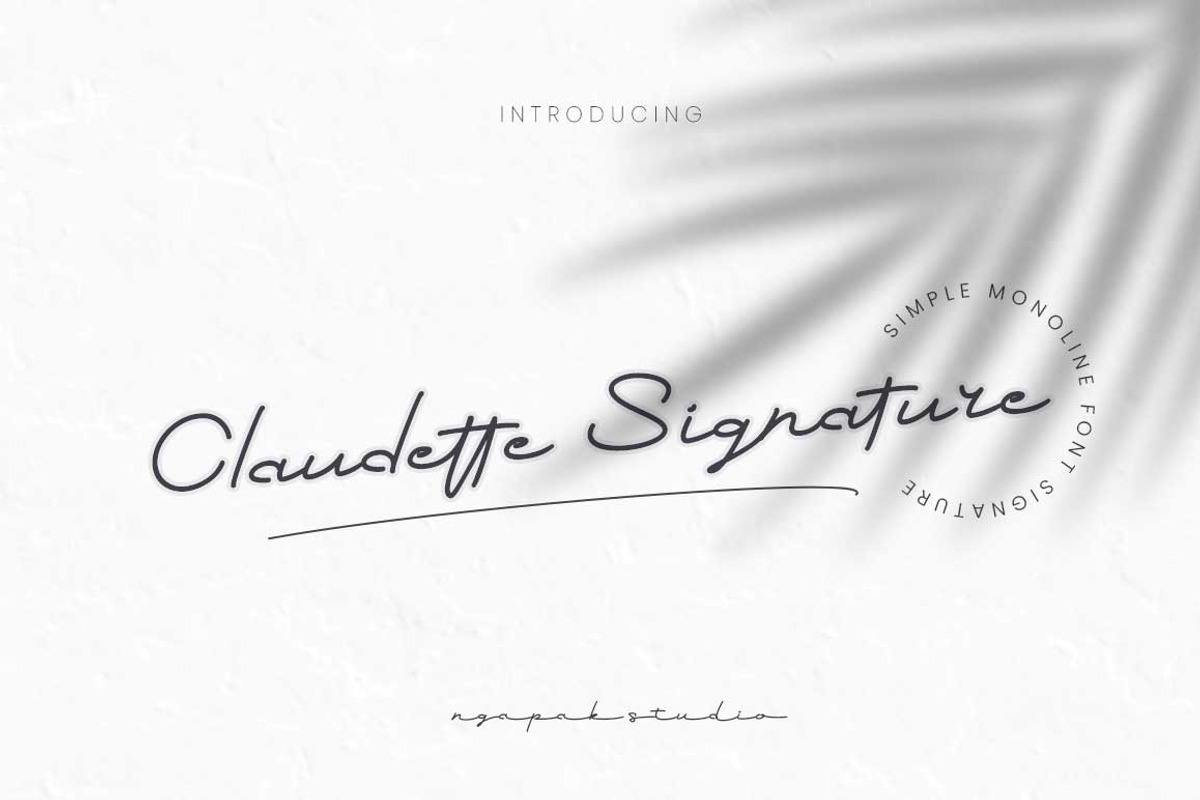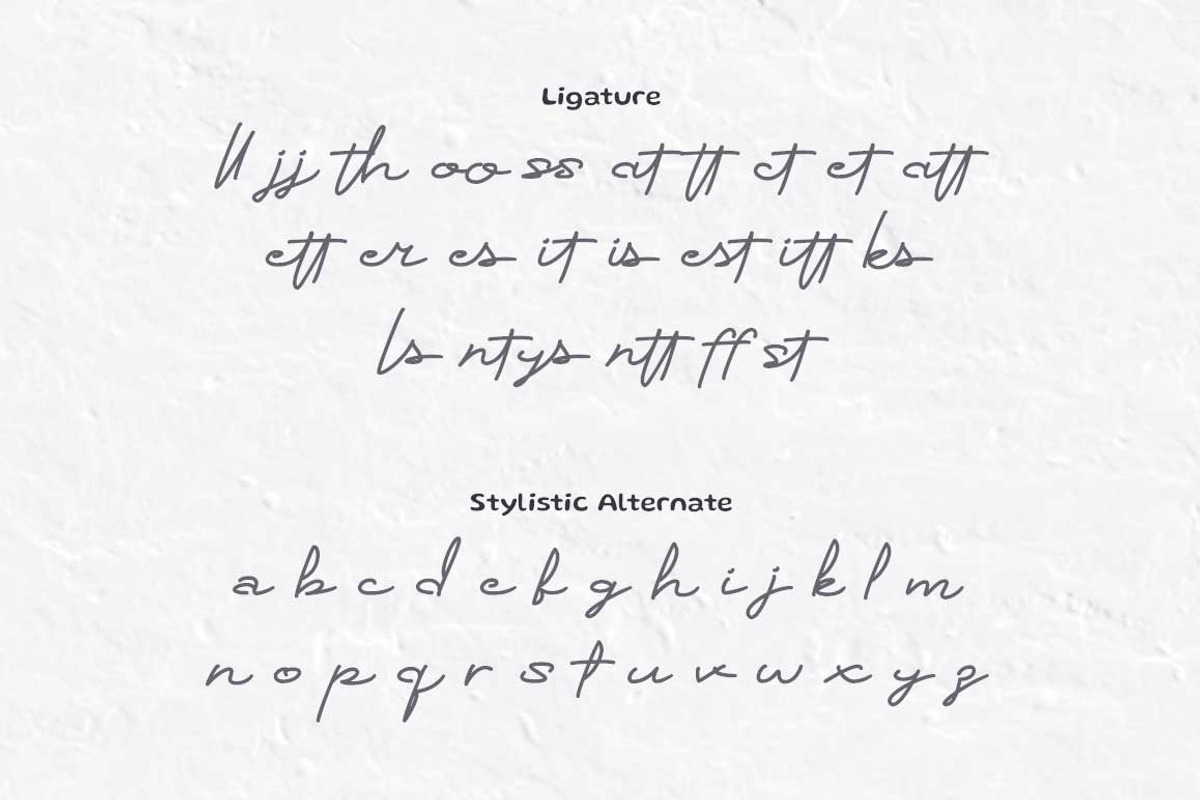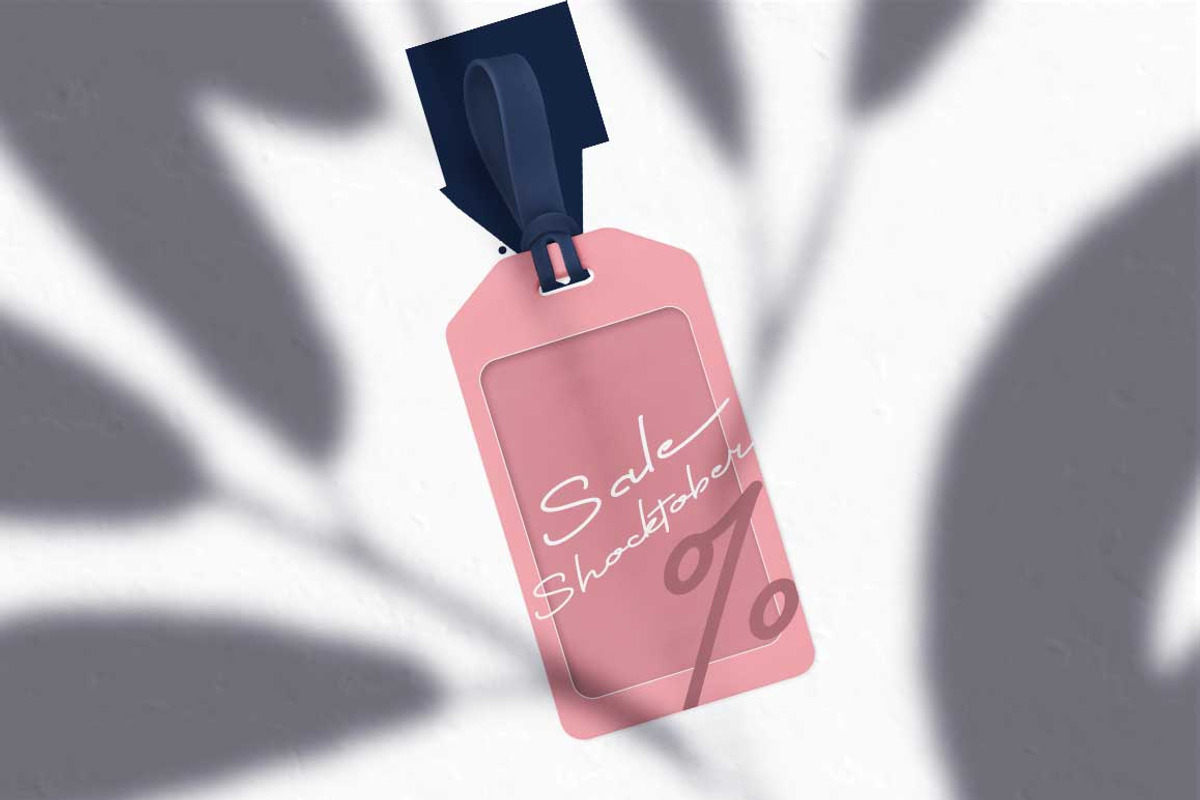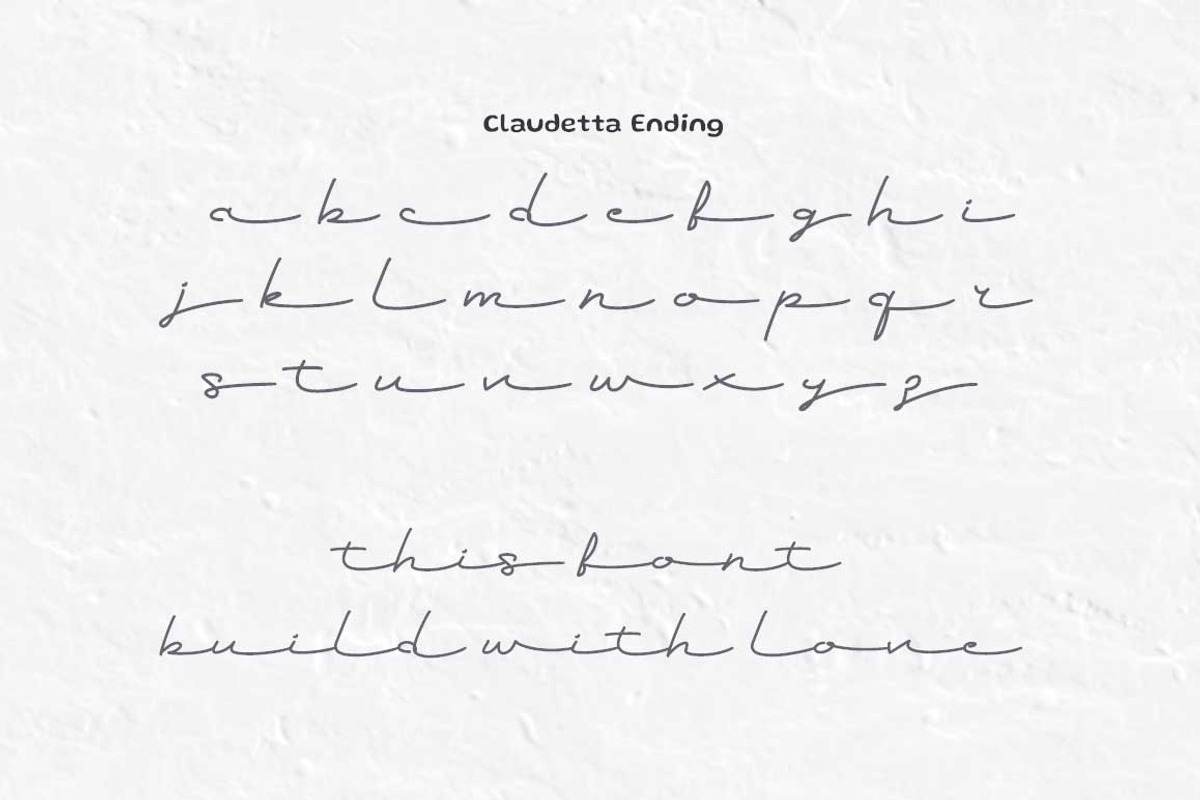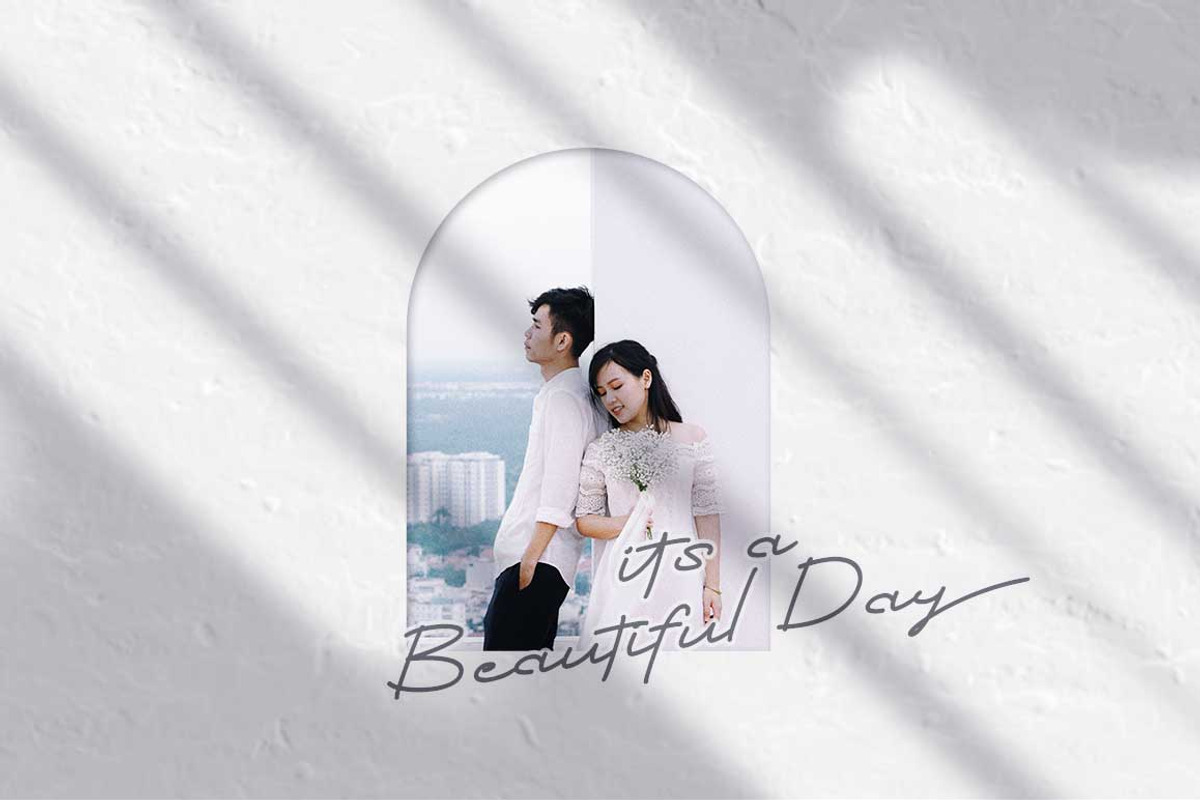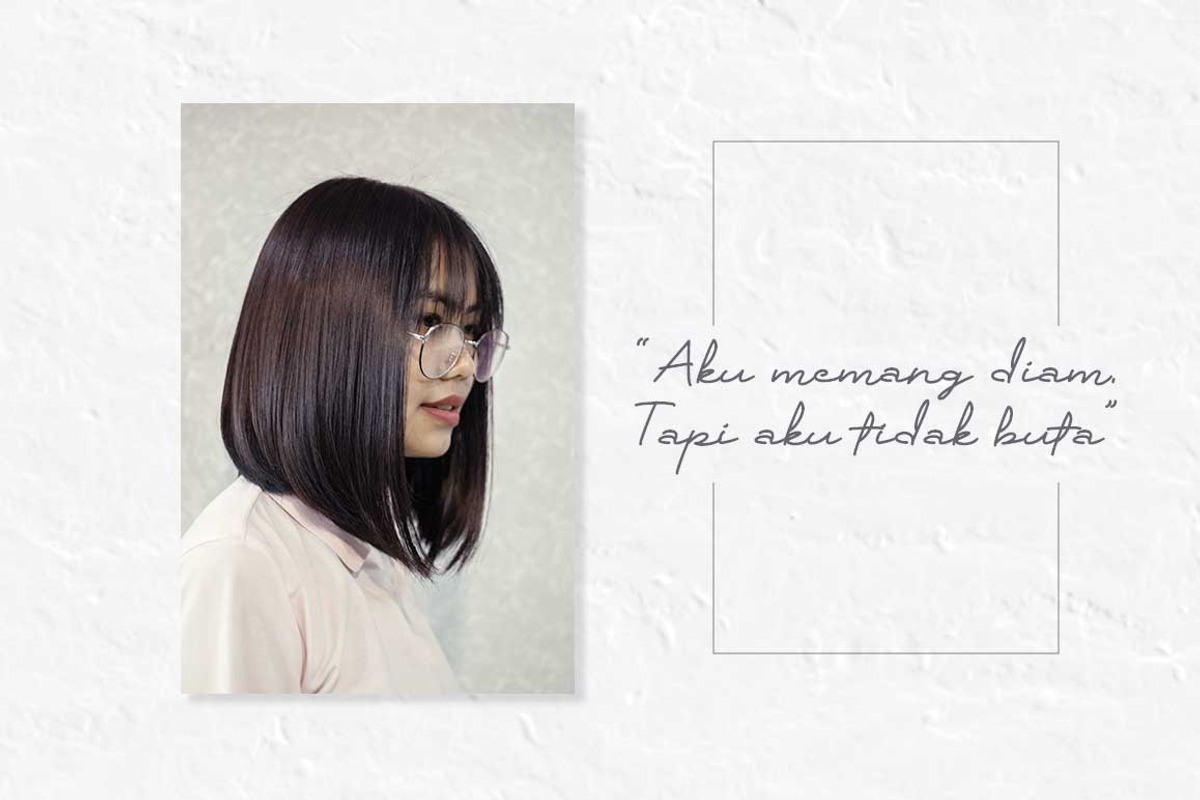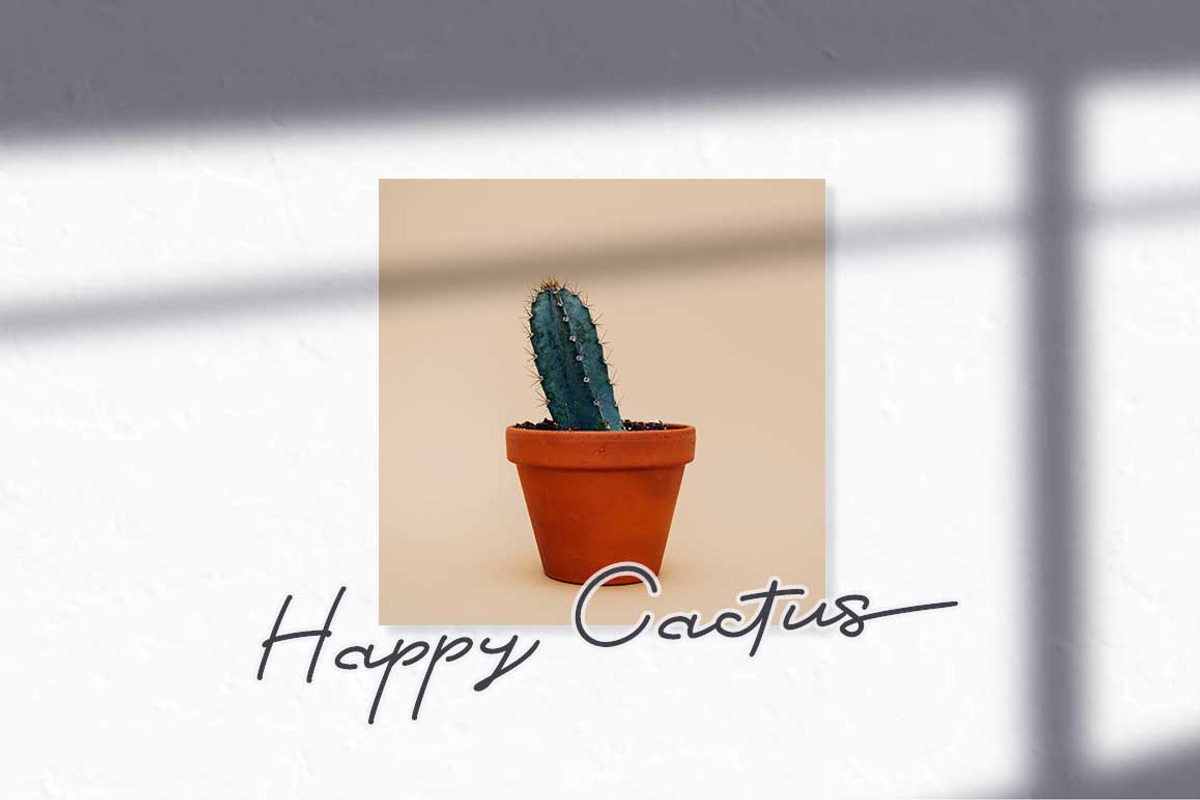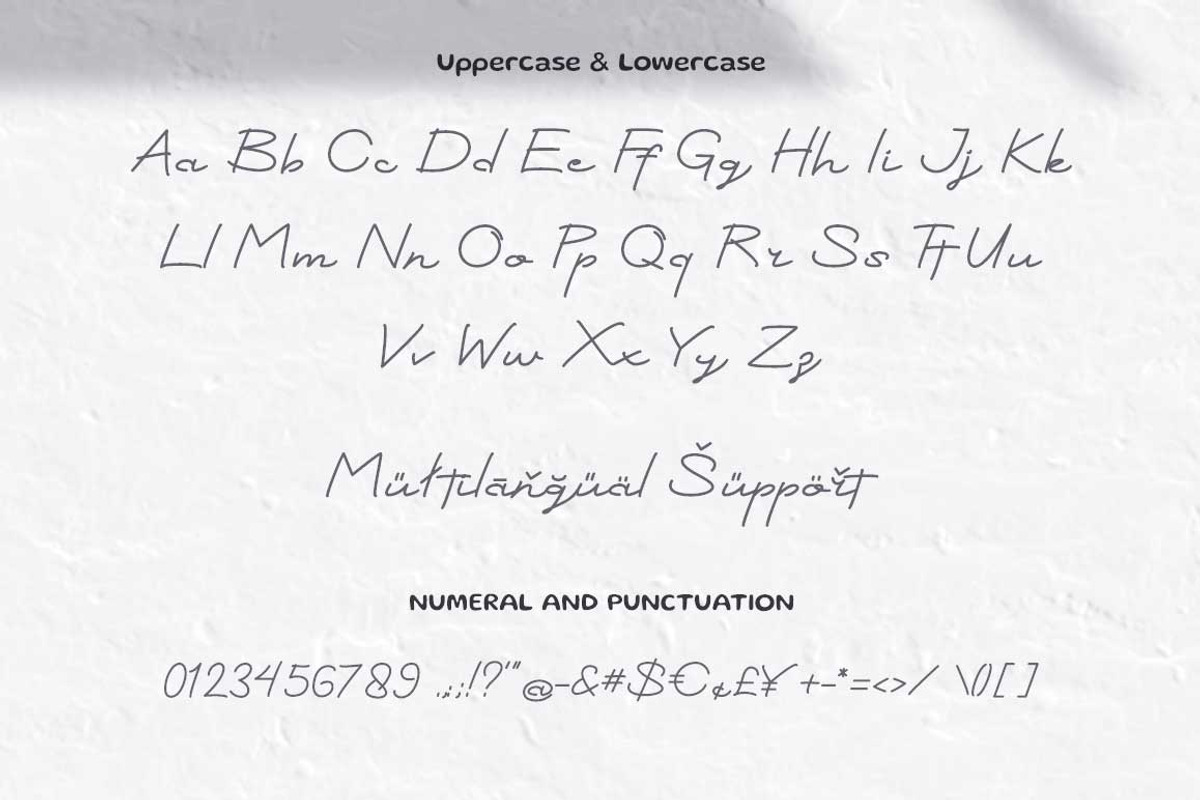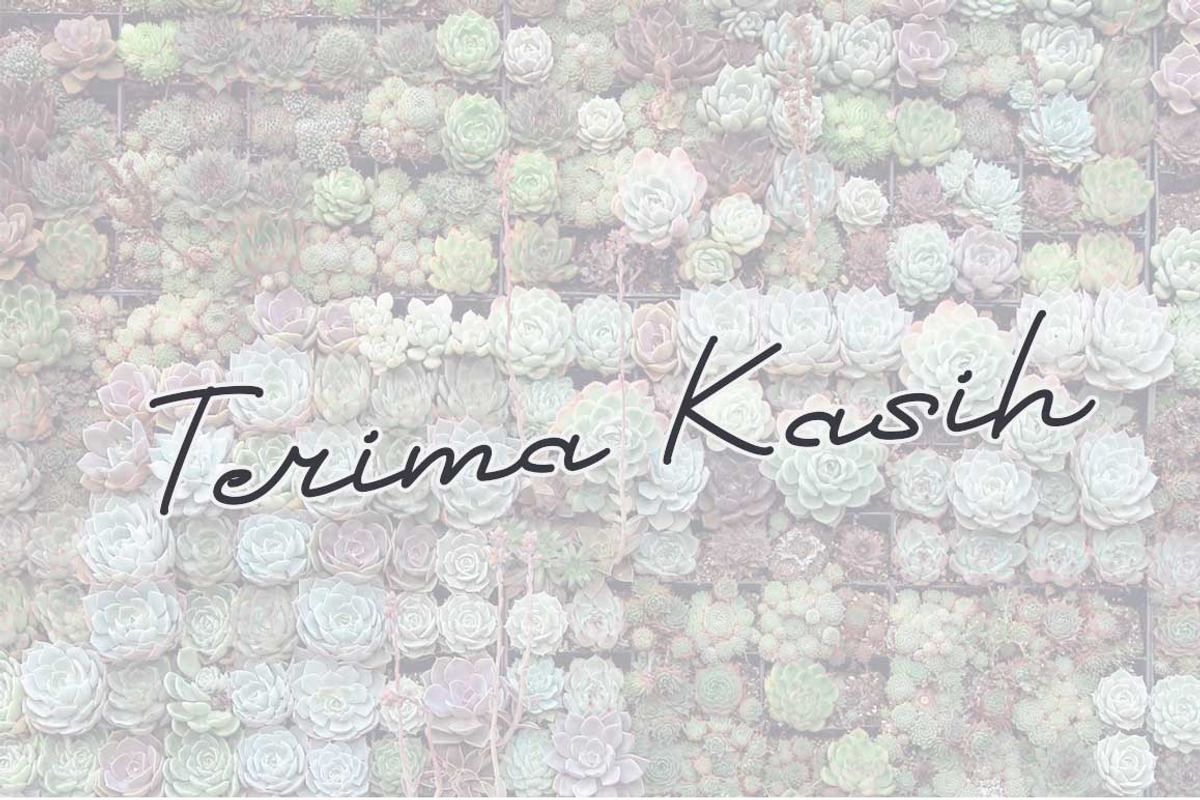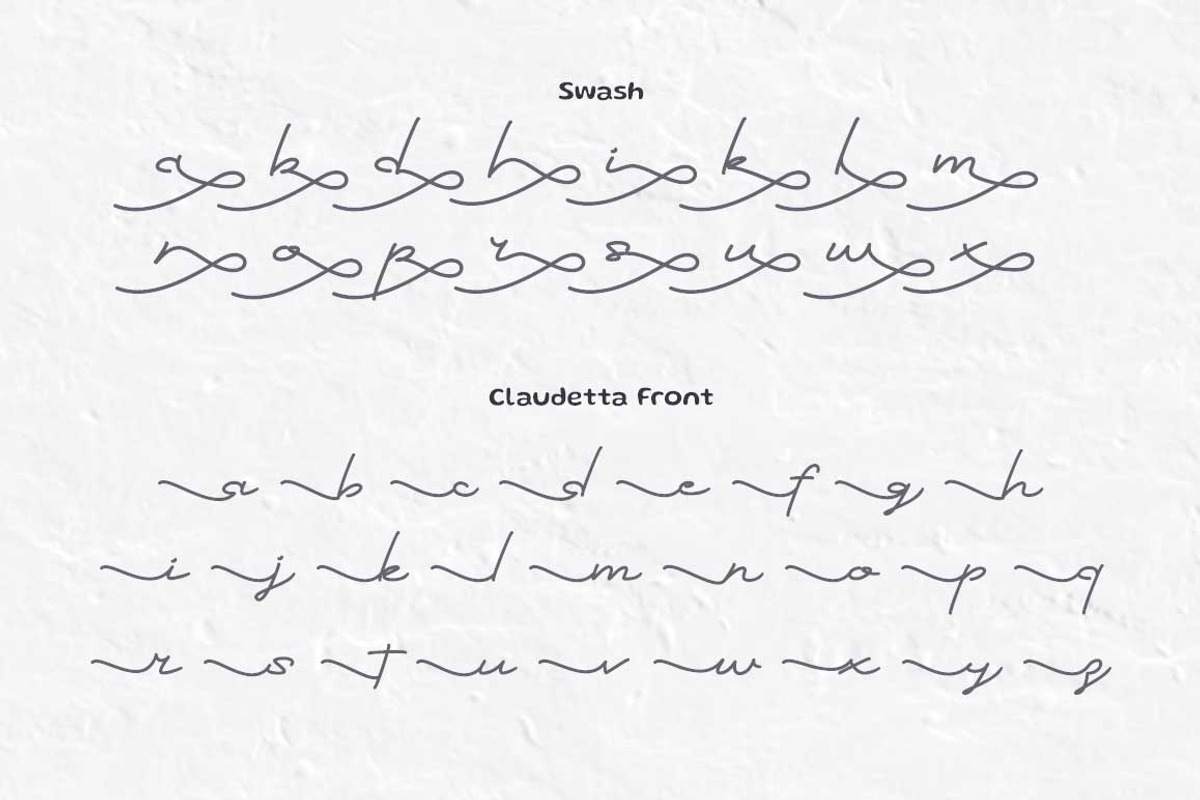
Claudette Signature | Signature Font
Claudette Signature is a simple brush font with a hand lettering that perfect for your project.
Claudette Signature is perfect for branding projects, wedding, wedding invitation, logo, social media posts, advertisements, product packaging, product designs, label, photography, watermark, invitation, stationery and any projects that need hand lettering monoline typeface taste.
- Ligature & Swash
- 3 Style Fonts